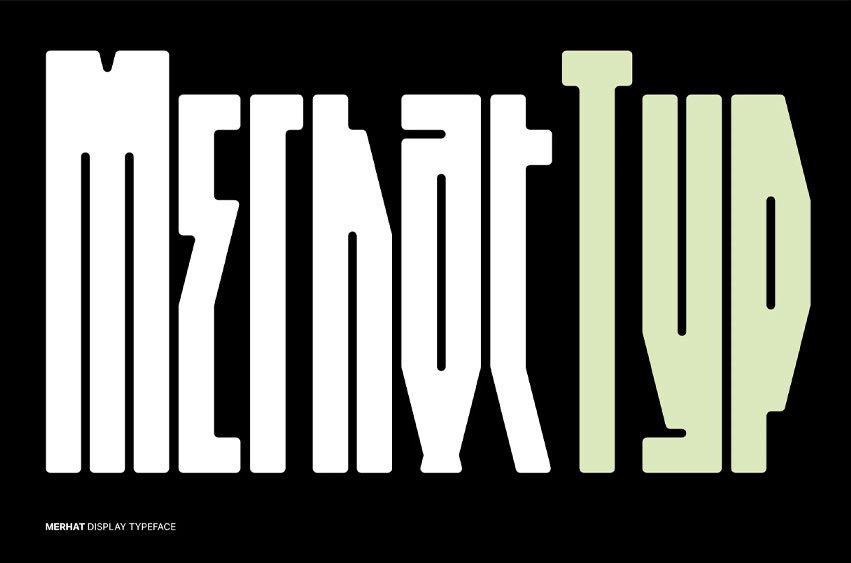
Merhat Font is a distinctive modern display font characterized by its geometric forms and condensed structure. Its slightly rounded corners add a touch of softness to the otherwise sharp aesthetic.
Designed for impact, Merhat is ideal for logos, graphic design projects, and typography where a bold and unusual statement is desired. Its grunge and punk influences make it suitable for music branding and edgy visual designs. The font package includes OTF, TTF, WOFF, and WOFF2 file formats, ensuring compatibility across both print and digital environments.